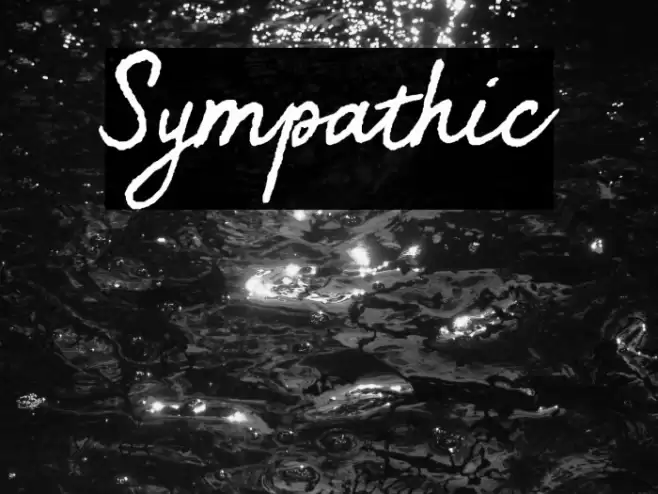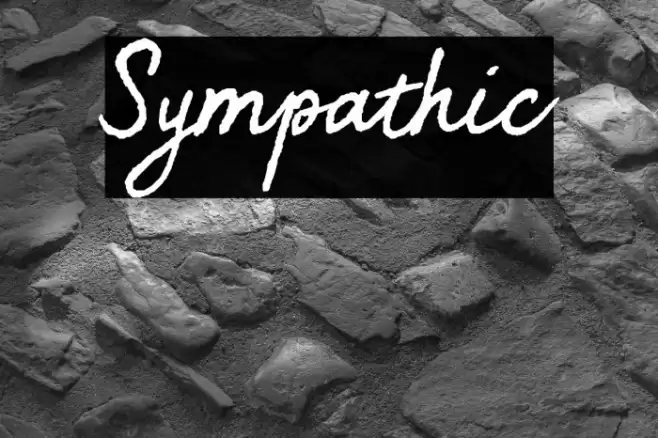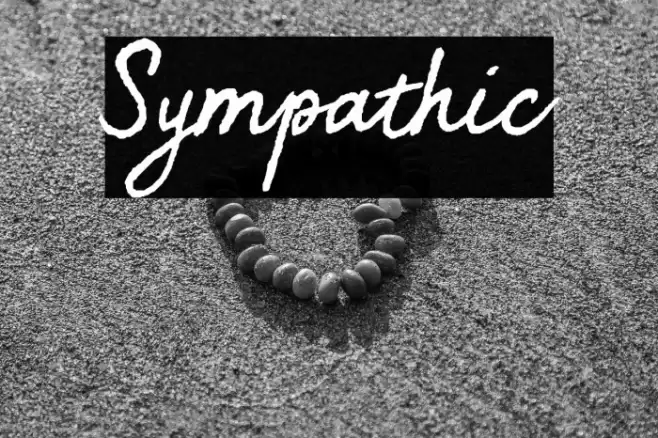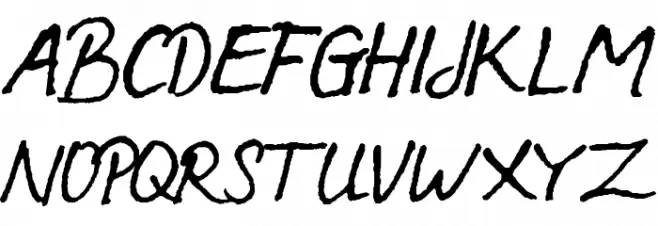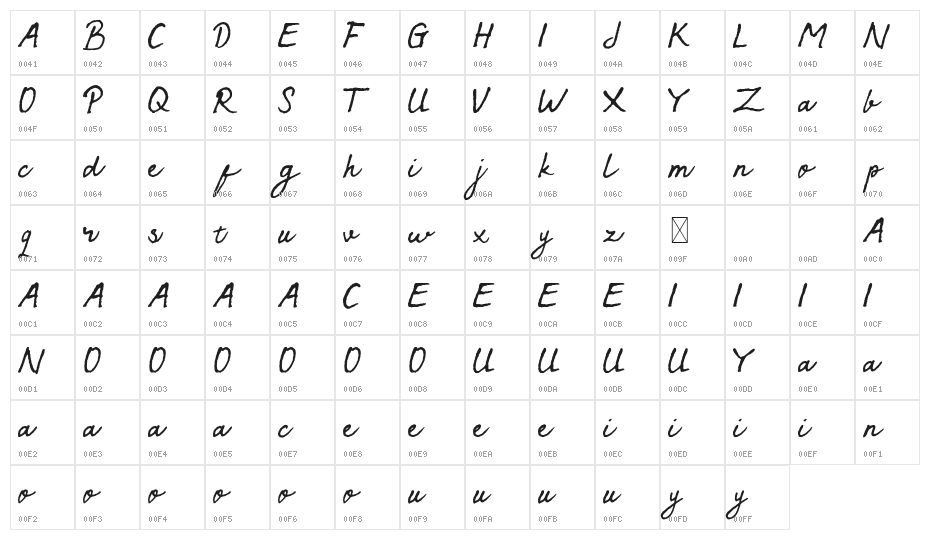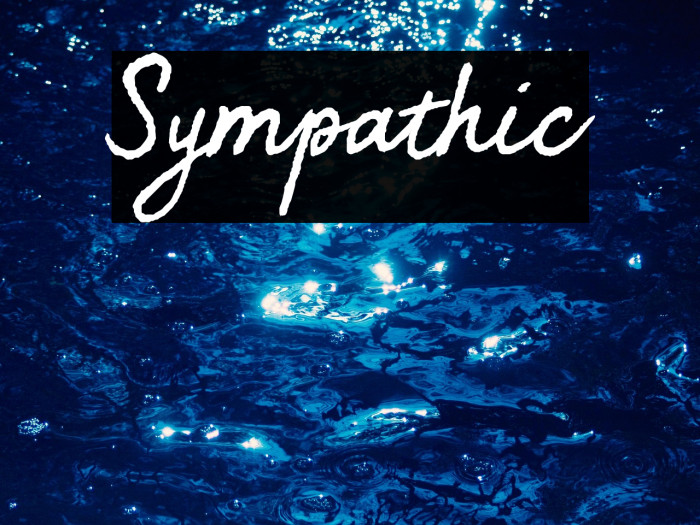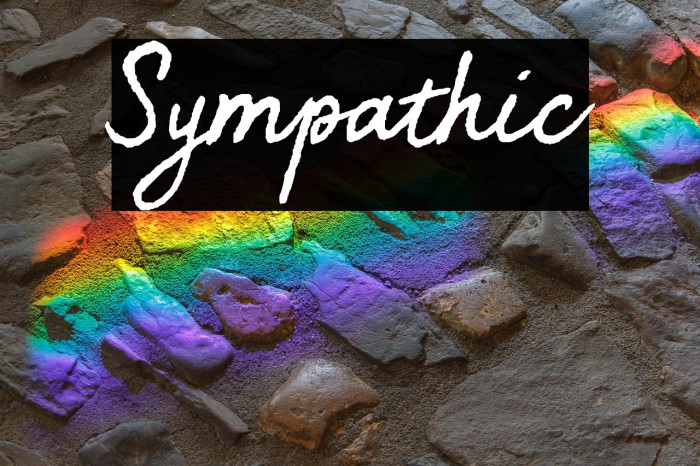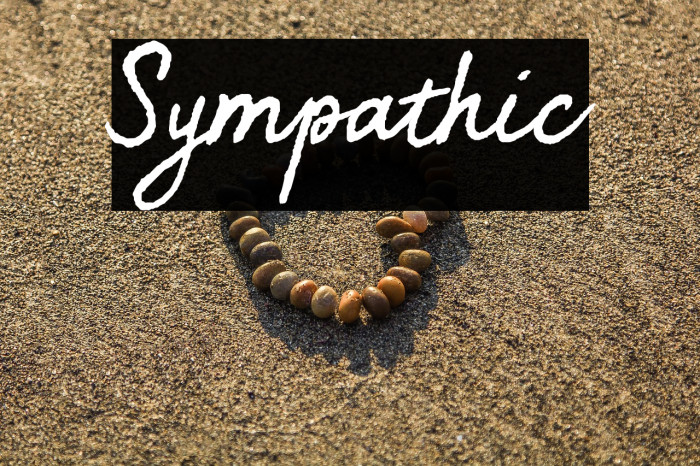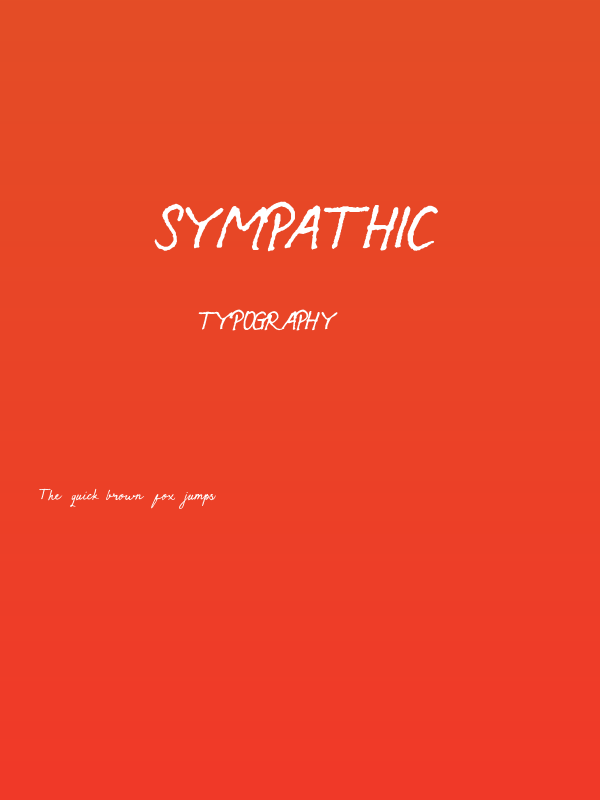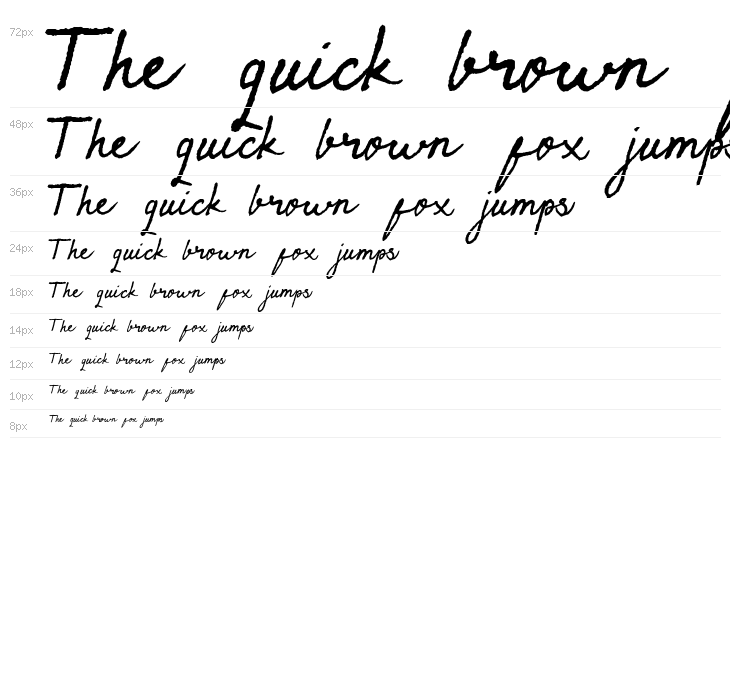
Sympathic Font
Sympathic Description
This font embodies a handwritten, cursive style that exudes a personal and informal touch. The strokes are fluid and slightly irregular, mimicking the natural flow of handwriting. Each letter connects seamlessly, enhancing the script's authenticity and charm. The uppercase letters maintain a consistent height, while the lowercase letters vary slightly, adding to the organic feel. The texture of the strokes suggests a brush or pen effect, with slight variations in thickness that contribute to its dynamic appearance. This font is ideal for projects that require a personal, approachable, and creative aesthetic.
A handwritten, cursive font with a fluid and personal style from Regular fonts.
- Proposed Projects: Greeting cards, personal letters, creative invitations, and artistic branding.
- Use Case: Logos, Invitations, Personal notes